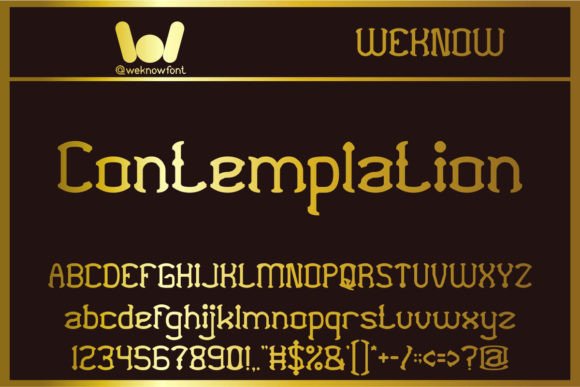
Introducing Contemplation Font: A Modern Gothic Display Typeface
In the world of typography, fonts play a crucial role in conveying messages, expressing emotions, and creating visual identities. For designers, crafters, and creative enthusiasts, finding the right font can be a daunting task. However, if you’re looking for a modern Gothic display font that exudes elegance, sophistication, and versatility, look no further than Contemplation Font.
What is Contemplation Font?
Contemplation Font is a modern Gothic display typeface designed to make a statement. Its unique blend of classic Gothic elements and contemporary flair makes it an ideal choice for a wide range of design projects. Whether you’re creating a logo, headline, corporate identity, or brand image, Contemplation Font is sure to impress.
Key Features of Contemplation Font
• Modern Gothic Style: Contemplation Font boasts a sleek, modern Gothic design that’s perfect for creating striking visuals.
• Display Font: This font is specifically designed for display purposes, making it ideal for headlines, titles, and short texts.
• Versatile: Contemplation Font can be used for various design projects, including logos, corporate identities, brand images, apparel, posters, movies, books, websites, and more.
• Highly Legible: Despite its ornate design, Contemplation Font remains highly legible, ensuring that your message is conveyed clearly and effectively.
Use Cases for Contemplation Font
Contemplation Font’s versatility makes it suitable for a wide range of design applications. Here are some use cases to inspire your creativity:
• Logos and Branding: Create a lasting impression with a unique and memorable logo that showcases your brand’s personality.
• Headlines and Titles: Add a touch of elegance and sophistication to your headlines and titles with Contemplation Font’s modern Gothic style.
• Apparel and Merchandise: Design stunning apparel, accessories, and merchandise that stand out from the crowd.
• Posters and Flyers: Create eye-catching posters and flyers that grab attention and convey your message effectively.
• Web Design: Use Contemplation Font to create visually appealing website headers, titles, and other design elements.
Tips for Using Contemplation Font
To get the most out of Contemplation Font, follow these tips:
• Pair with Neutral Fonts: Combine Contemplation Font with neutral fonts to create visual contrast and hierarchy.
• Experiment with Colors: Play with different colors to find the perfect match for your design and brand identity.
• Pay Attention to Spacing: Ensure adequate spacing between letters and lines to maintain readability and aesthetics.
Contemplation Font is a powerful tool for designers, crafters, and creative enthusiasts looking to add a touch of modern Gothic elegance to their designs. With its versatility, legibility, and striking appearance, this font is sure to elevate your design projects and leave a lasting impression. So why wait? Explore the possibilities of Contemplation Font today and unleash your creativity!